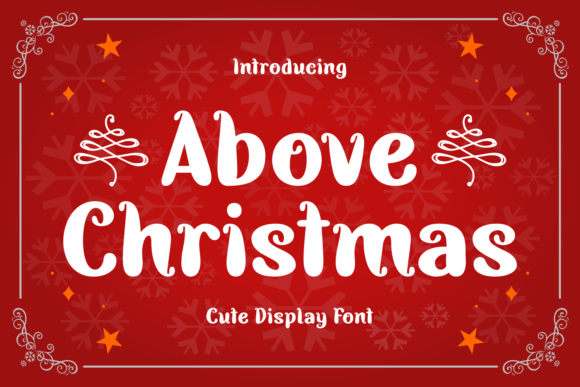
Deck the Halls with Type: A Holiday Font to Fall in Love With
As a designer, there’s nothing quite like the thrill of bringing a creative idea to life. Whether you’re crafting a festive holiday card or designing a fun social media post, the right font can make all the difference. And this time of year, there’s one font that’s sure to put a smile on your face: Above Christmas Font.
This adorable display font is the perfect addition to any holiday project. With its cheerful, friendly vibe, Above Christmas Font is sure to spread joy and positivity wherever it’s used. Whether you’re creating a New Year’s Eve countdown or a Merry Christmas message, this font is the perfect way to add a dash of festivity to your design. And with its versatility shining through in quote creations and T-shirt designs, Above Christmas Font is a valuable addition to any designer’s toolkit.
Above Christmas Font Key Features
- Font Family: Above Christmas Font is a unique, custom-designed font family with a festive and playful feel, perfect for holiday-themed designs.
- Character Count: The font family includes a wide range of characters, including uppercase and lowercase letters, numbers, punctuation, and special characters.
- Unique Characteristics: The Above Christmas Font features a distinctive, hand-drawn style with bold lines and playful flourishes, adding a touch of whimsy to any design.
Above Christmas Font Review
I’ve had the chance to work with “Above Christmas Font” and I must say it’s a unique blend of traditional and modern elements. ✨ The font’s festive feel is perfect for projects centered around Christmas or winter themes. The high-quality vectors and seamless scalability make it a great choice for both print and digital designs.
- ✨ Beautiful, hand-drawn illustrations that evoke a sense of nostalgia and warmth.
- ✨ Easy to customize with a wide range of colors and styles.
- ✨ Suitable for various design projects, from greeting cards to holiday advertisements.
However, there are some limitations to consider: ⚠️ The font may not be as versatile for non-holiday projects, and the intricate illustrations can be overwhelming if not balanced properly. Additionally, the font’s complexity may lead to slower loading times in digital designs.
Overall, “Above Christmas Font” is a solid choice for designers looking to add a touch of holiday magic to their projects. While it may not be suitable for every design, its unique charm and high-quality vectors make it a great addition to any designer’s toolkit.
The Above Christmas Font is perfect for creating festive holiday designs, such as:
- Holiday cards and invitations
- Christmas party decorations and signs
- Gift tags and wrapping paper
- Winter-themed social media graphics